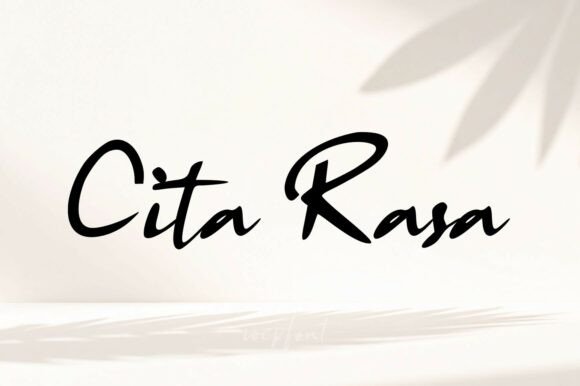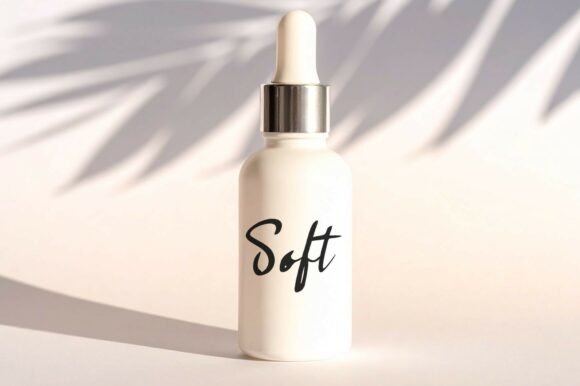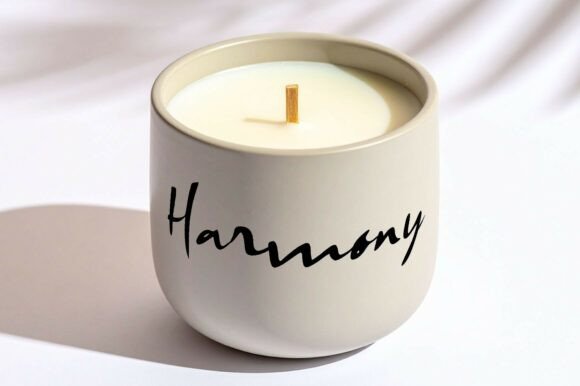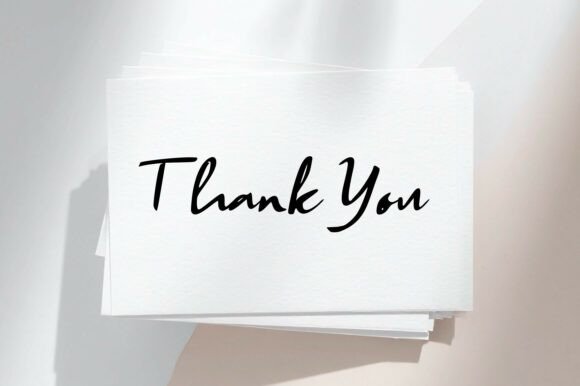
Surrender to Elegance: Discover the Subtle Allure of Cita Rasa Font
In the realm of typography, few fonts manage to convey the essence of elegance and sophistication as effortlessly as Cita Rasa. This beautifully crafted script font is not just a typeface; it’s an experience. With its gracefully poised stance and elegant flow, Cita Rasa slides smoothly across any canvas, leaving a lasting impression of refined simplicity. Its organic handwriting style exudes an ambience of upscale elegance, perfectly balanced with a sense of absolute relaxation.
The Essence of Cita Rasa
At the heart of Cita Rasa’s allure are its gently swirling curves and tranquil, unbroken flow. These characteristics set an ambience of serenity and sophistication, making it an ideal choice for luxury brands and designers aiming to convey a sense of high-end quality and femininity. The font’s gentle allure is reminiscent of HDR labels and Harmony candle branding, where elegance and poise are paramount.
Crafted for Luxury
Cita Rasa is specifically crafted for luxury brands seeking a softer, more aesthetic approach to their branding. Its delicate strokes contribute seamlessly to creating a luxurious feel, making it a perfect fit for brands that wish to stand out with elegance. The font effortlessly unifies classical charm with contemporary flair, offering a clean and flawless design that boasts commendable legibility.
One of the standout features of Cita Rasa is its versatility. It beautifully accommodates a wide range of sectors including beauty, wellness, hospitality, and artisan craft. This versatility makes Cita Rasa a go-to font for designers and crafters who work across various industries and need a typeface that can adapt to different branding needs.
The Carefully Sculpted Cita Rasa Font
The Cita Rasa font is a masterpiece of modern typography. Its design is a careful balance of aesthetics and functionality. Each letter is meticulously crafted to ensure that the font not only looks good but also enhances readability. This attention to detail makes Cita Rasa a standout in modern branding, where the right typeface can make all the difference.
Why Choose Cita Rasa?
- Elegance and Sophistication: Cita Rasa brings an unmatched level of elegance and sophistication to any project.
- Refined Simplicity: Its design is a perfect epitome of refined simplicity, making it versatile for various applications.
- Legibility: The font boasts clean, flawless lines and commendable legibility, essential for effective branding.
- Versatility: Suitable for luxury brands, beauty, wellness, hospitality, and artisan craft sectors.
Cita Rasa is more than just a font; it’s a statement of elegance, sophistication, and luxury. Its subtle allure and gracefully poised design make it an ideal choice for designers and brands looking to make a lasting impression. Whether you’re working on a luxury brand, a beauty product, or an artisan craft project, Cita Rasa offers the perfect blend of classical charm and contemporary flair. Surrender to the subtle allure of Cita Rasa and elevate your brand’s aesthetic to new heights of elegance and sophistication.
In the world of typography, Cita Rasa stands as a beacon of refined elegance, ready to transform your designs with its gentle curves and tranquil flow. Experience the opulence personified by Cita Rasa and discover a new dimension of typographic excellence.